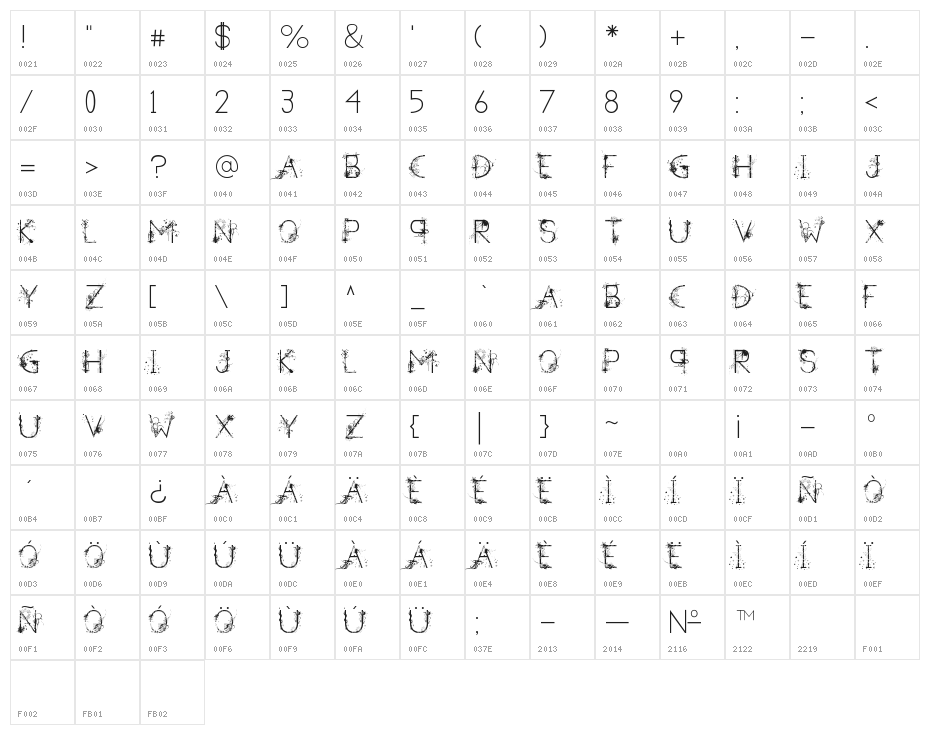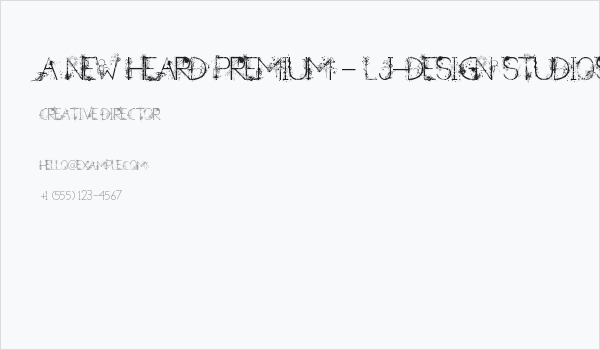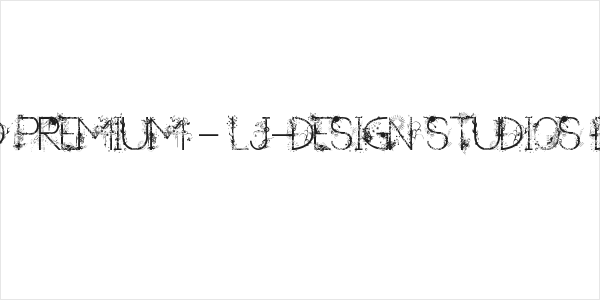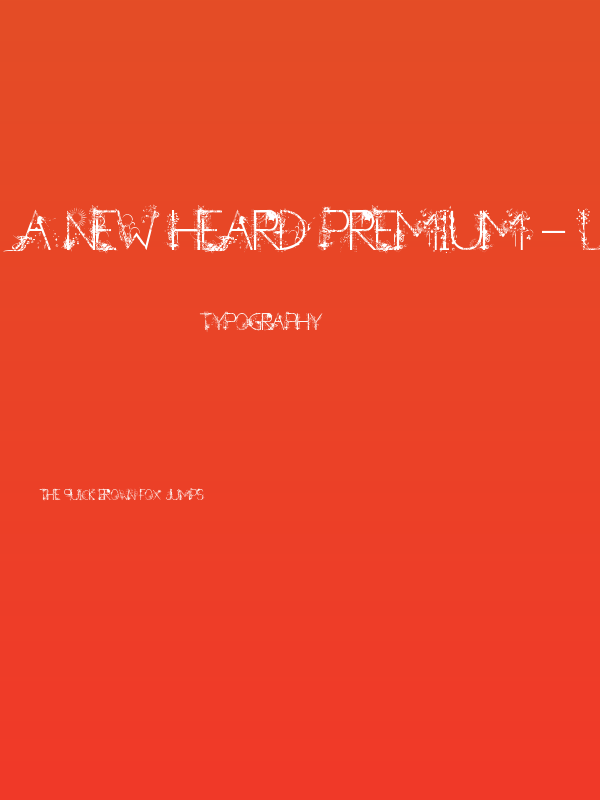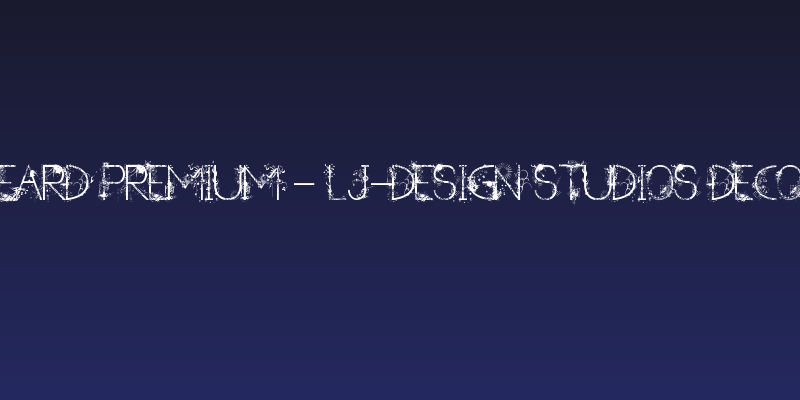
A new Heard Premium - LJ-Design Studios Decorativa Font
A new Heard Premium - LJ-Design Studios Decorativa Description
This font features an intricate and decorative design, incorporating floral and organic elements into each character. The uppercase letters are adorned with swirling vines and delicate embellishments, creating a sense of elegance and complexity. The lowercase letters maintain a similar style, with consistent decorative patterns that enhance their visual appeal. The numerals are more straightforward but still carry a touch of the ornate style seen in the alphabet. Special characters are included, each uniquely styled to match the overall theme. This font is ideal for projects that require a touch of sophistication and artistry.
| Use Case | Headlines, Logos, Artistic projects |
| Proposed Projects | Ideal for wedding invitations, artistic posters, branding for luxury products, and decorative headings. |